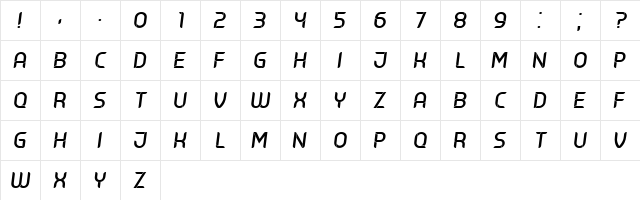
Serbia Italic
Design Context for Serbia Typeface
Serbia takes a measured approach to typography — its balanced proportions and neutral character make it a reliable workhorse for both digital and print work. The dynamic lean of this cut emphasises speed and emphasis in any layout.
Pro Tip: Use Serbia for emphasis, pull quotes, and subheadings where its slanted energy can add rhythm to the layout.